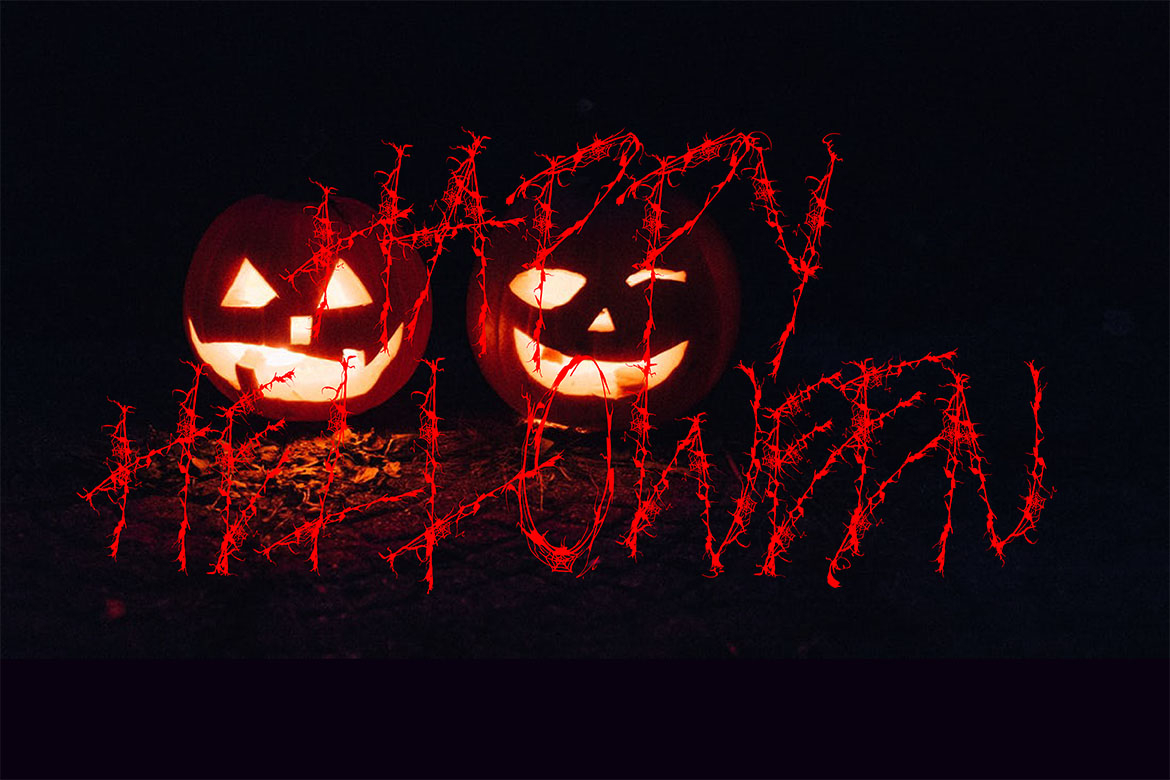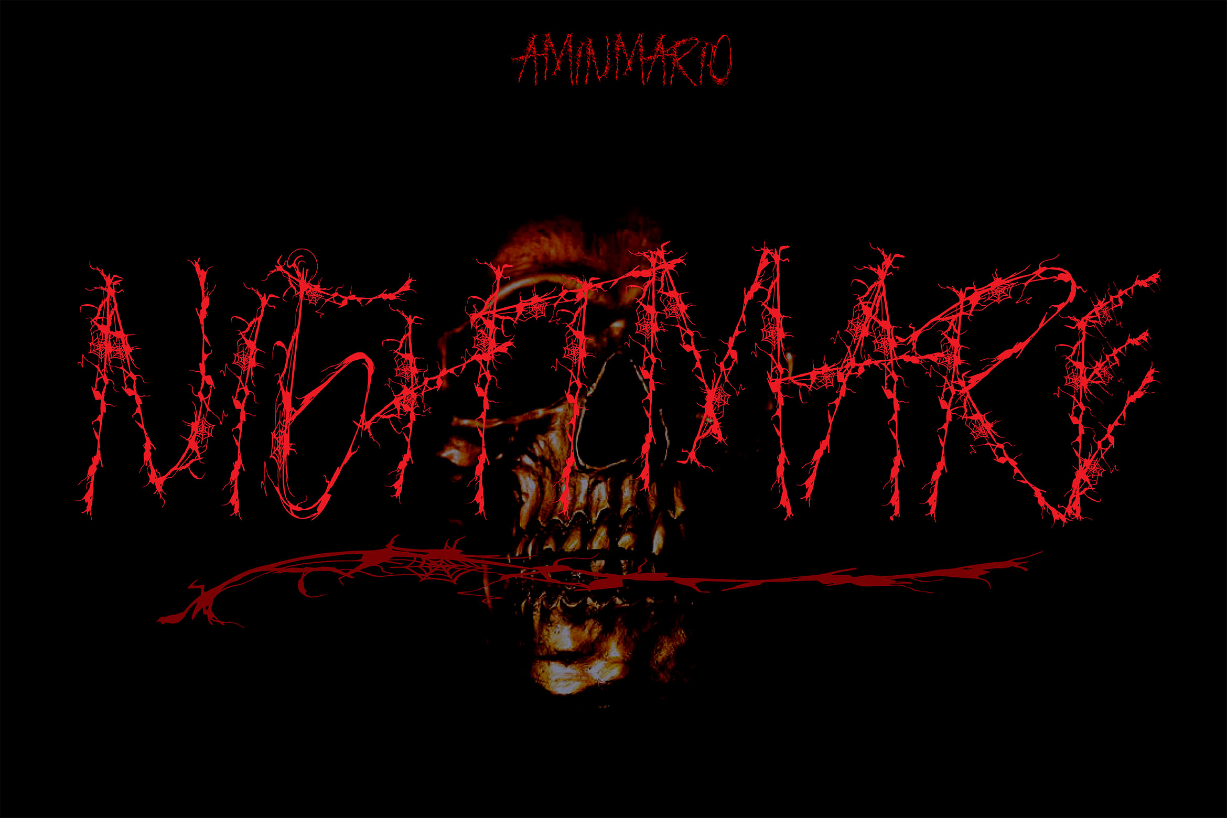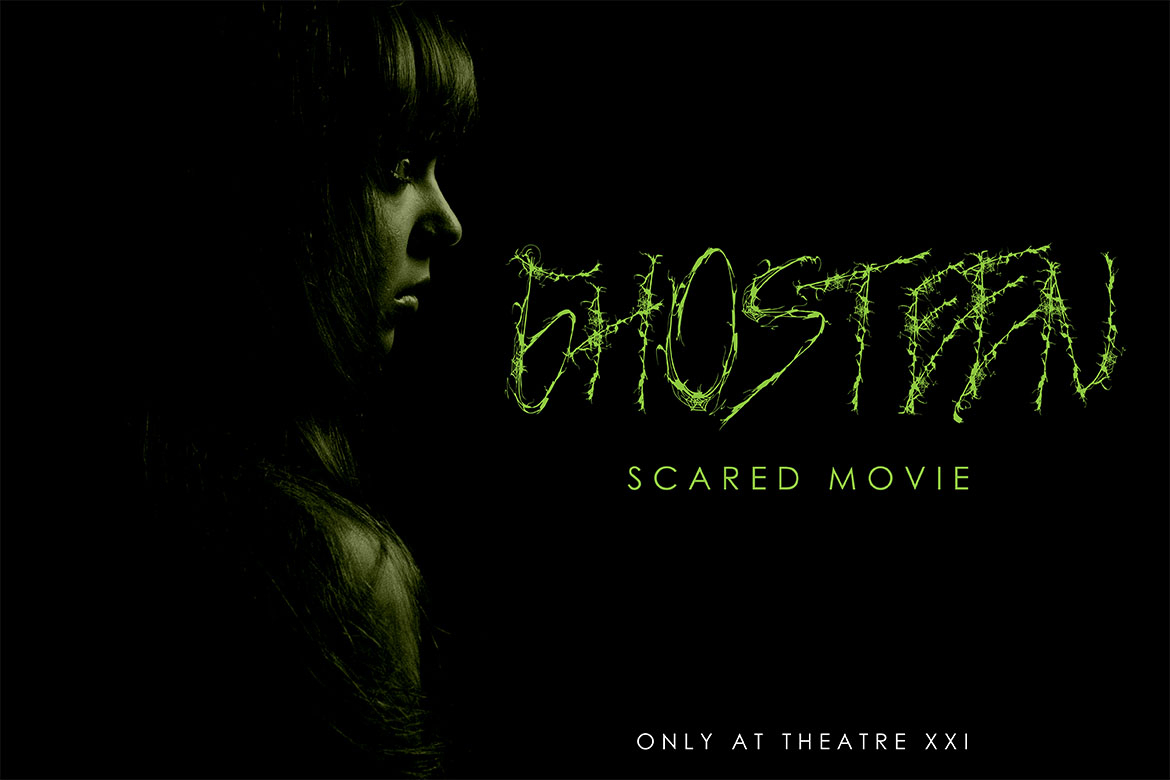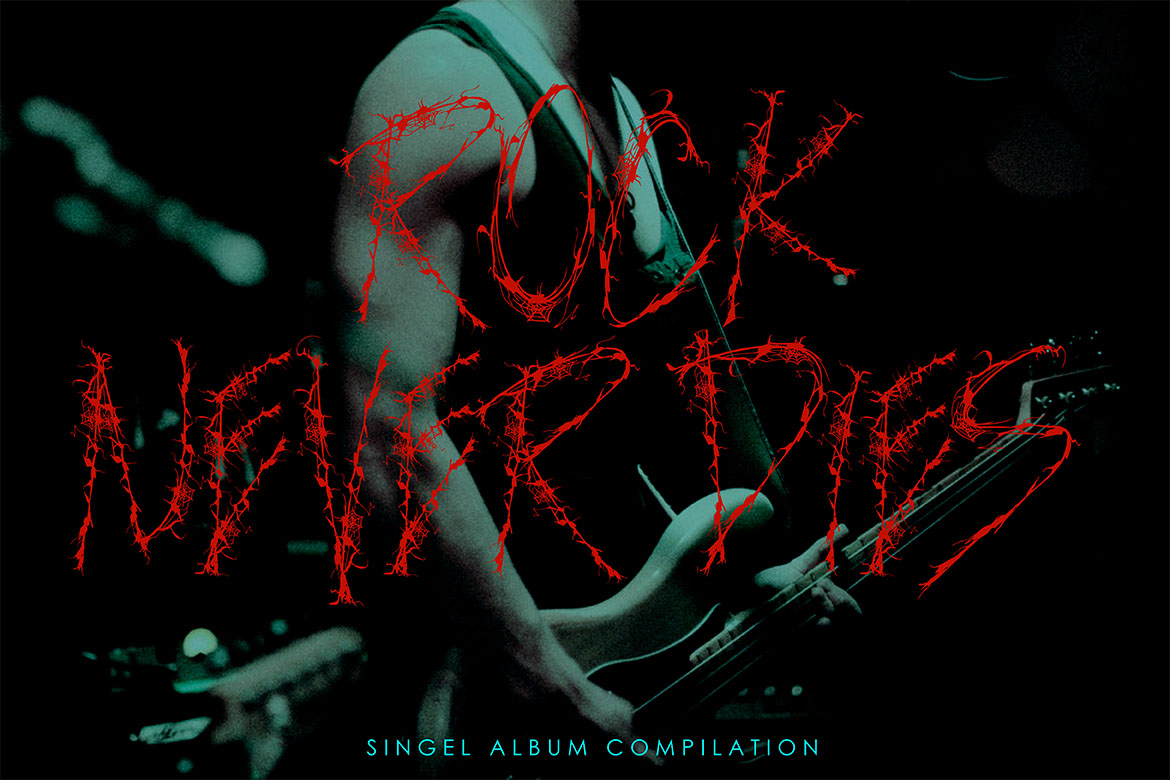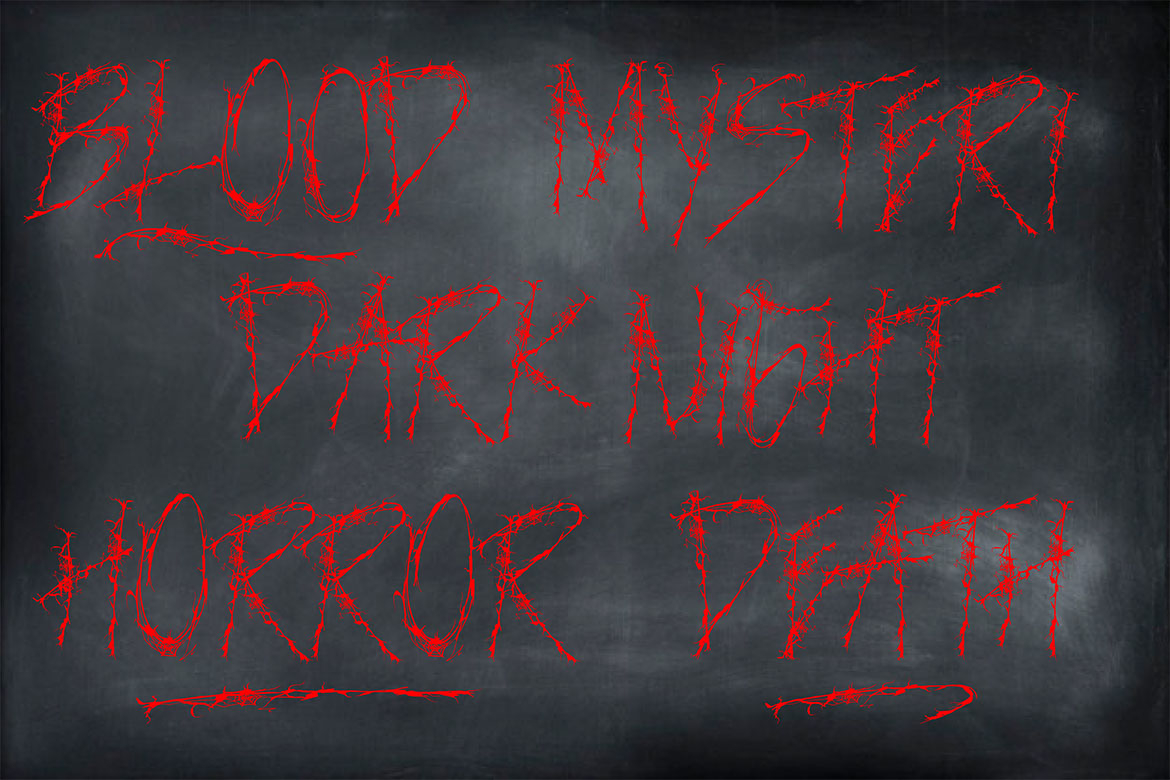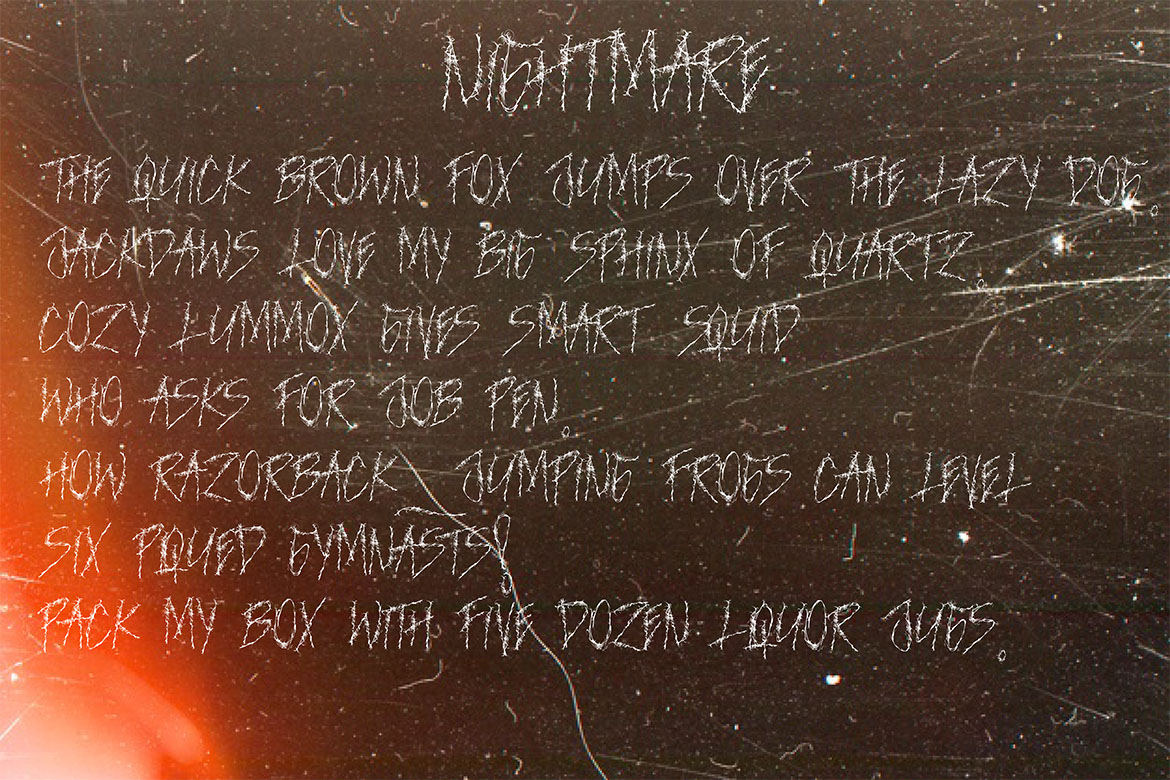
HomeBlackletter FontsNightmare Font Blackletter Fonts Nightmare Font FacebookXPinterestWhatsApp 1 of 8 Nightmare Font Poster 2... Nightmare Font Poster 3... Nightmare Font Poster 4... Nightmare Font Poster 5... Nightmare Font Poster 6... Nightmare Font Poster 7... Nightmare Font Poster 8... About Nightmare Font With its nightmarish lettering and scratched style, Nightmare is one hell of a good blackletter font. DOWNLOAD NOW People also explored Fineshly Signature Font Hello Wild Font Bergelmir Falide Font Rofaela Font Wedding Day Font Downpour Font Honey Monogram Font Tylaz Font 377 0 TagsNightmare Font Previous articleFireflight FontNext articleHomewrecks Font LEAVE A REPLY Cancel reply Comment: Please enter your comment! Name:* Please enter your name here Email:* You have entered an incorrect email address! Please enter your email address here Website: Save my name, email, and website in this browser for the next time I comment. Personal Use Free Indonesia Dermawan Personal Use Free Read more about this font Romansya Personal Use Free Read more about this font Moon Light Personal Use Free Read more about this font Baby Love Personal Use Free Read more about this font BLOG 5 Fonts That Will Dominate Design Trends in 2026 5 Fonts for 2026 That Will Dominate Design Trends Typography plays a critical role in visual communication, and as we look ahead to 2026, it’s... Top 7 Google Fonts Alternatives for Faster and Privacy-Friendly Web Design (2025) To increase your work productivity, choose the most readable fonts. How to Install and Use Fonts on Windows, macOS, and Web Projects